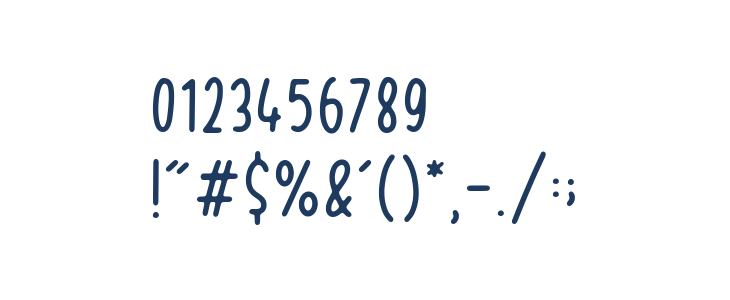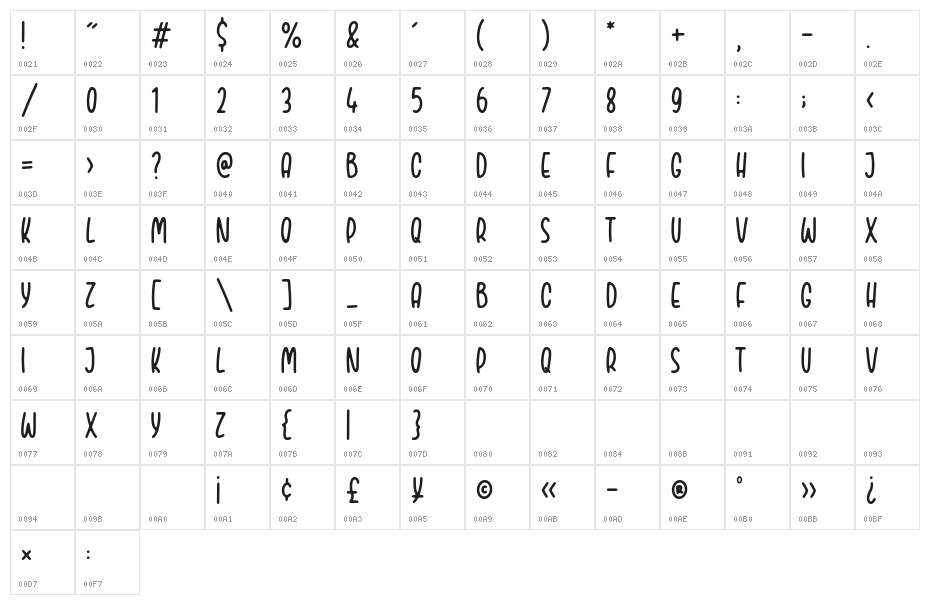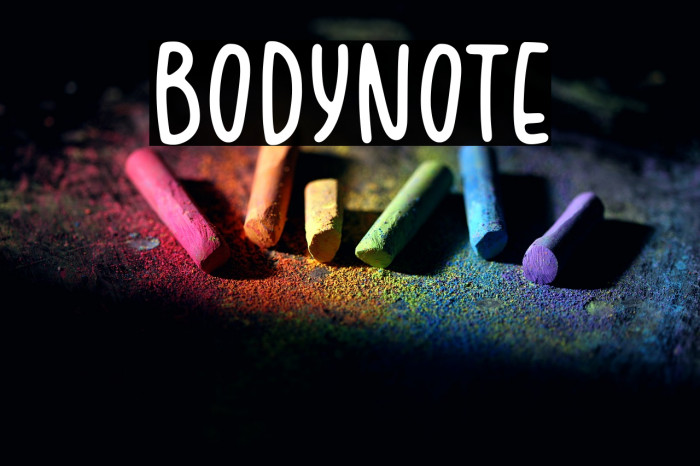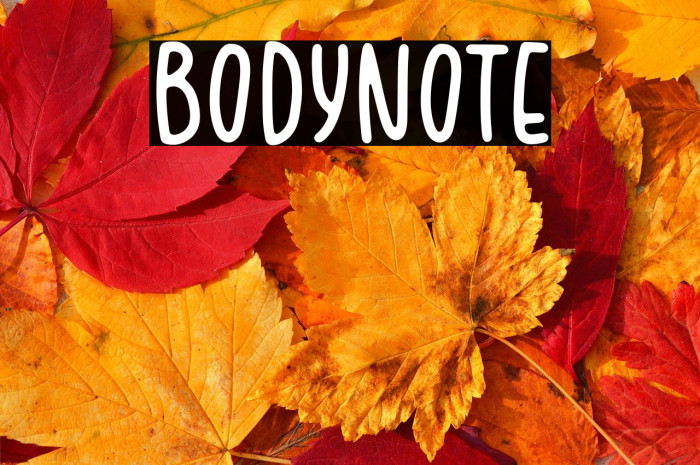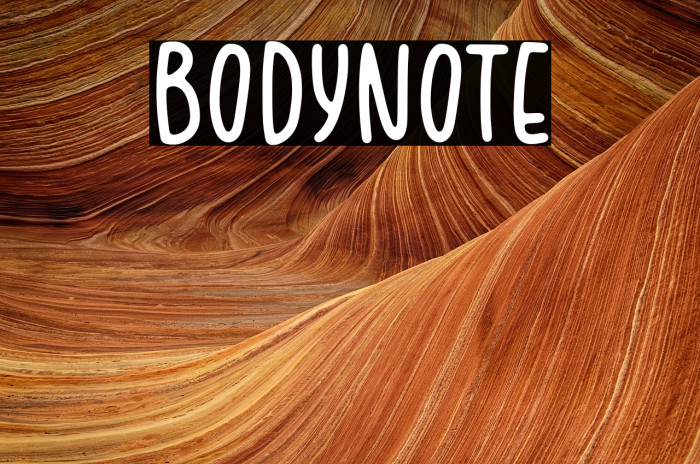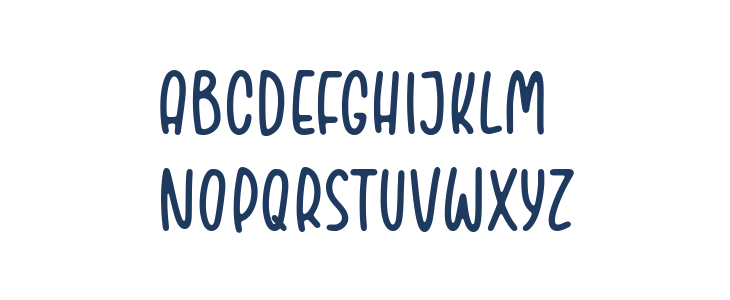
BODYNOTE Font
BODYNOTE Description
This font features a playful and rounded style with a handwritten appearance. The characters are uniformly bold, with smooth curves and a consistent stroke width that gives it a friendly and approachable look. The uppercase and lowercase letters maintain a cohesive design, while the numerals and special characters complement the overall aesthetic. The font's informal nature makes it ideal for projects that require a personal touch or a casual vibe. Its readability and distinctiveness make it suitable for various creative applications.
| Overall Style | Casual |
| Use Case | Headlines, Logos, Informal Text |
| Proposed Projects | Ideal for children's books, greeting cards, playful branding, social media graphics, and informal invitations. |